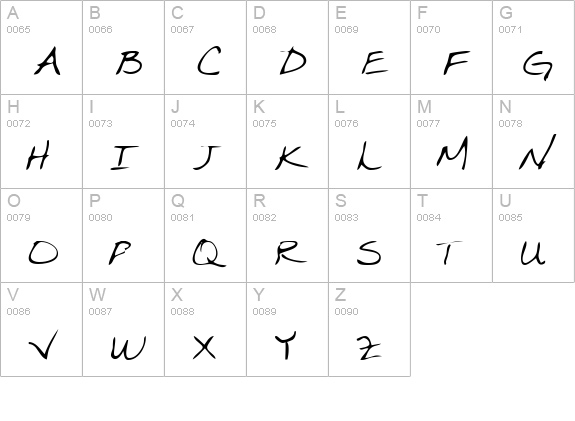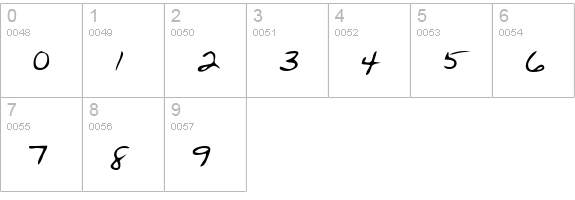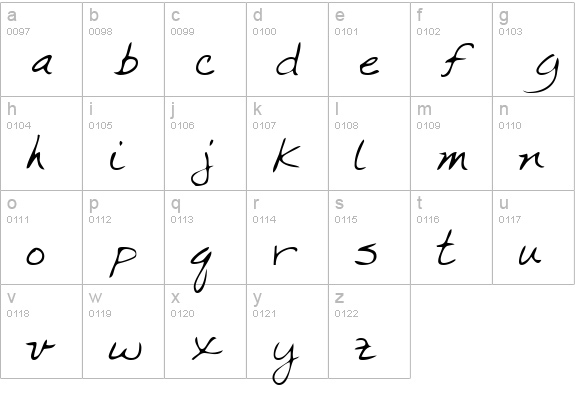
CrystalsHand Font Details
Introducing CrystalsHand font, a beautifully crafted typeface that exudes elegance and charm. This unique font features delicate curves and intricate detailing, giving your designs a touch of sophistication and creativity. Whether you're working on invitations, branding, or any other project that calls for a stylish and graceful font, CrystalsHand is the perfect choice. The best part? CrystalsHand font is available for free download at FontsMarket.com. Embrace the beauty and versatility of this stunning font without breaking the bank. Elevate your designs with CrystalsHand and let your creativity shine. Download now and start creating stunning visuals with this exceptional typeface.